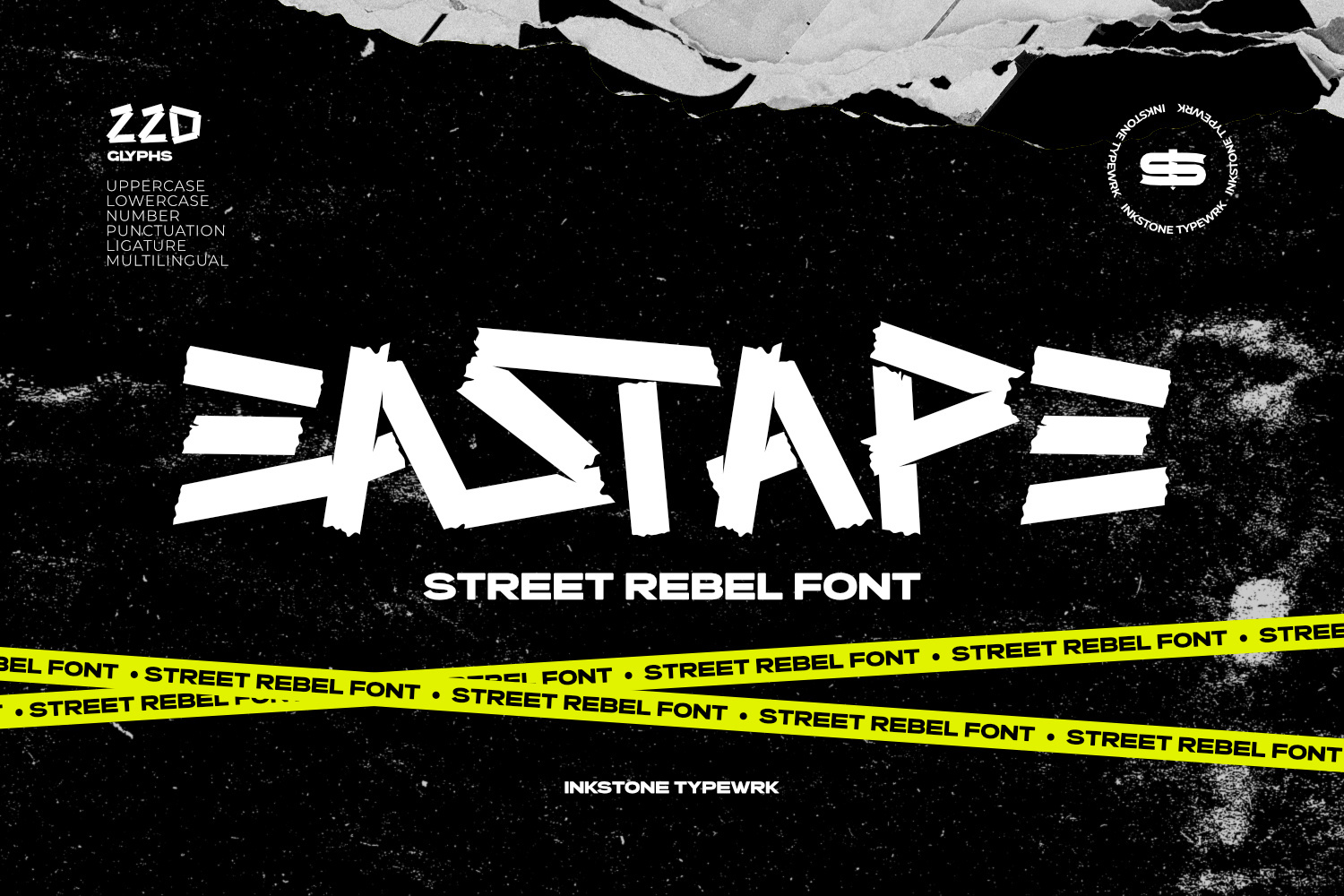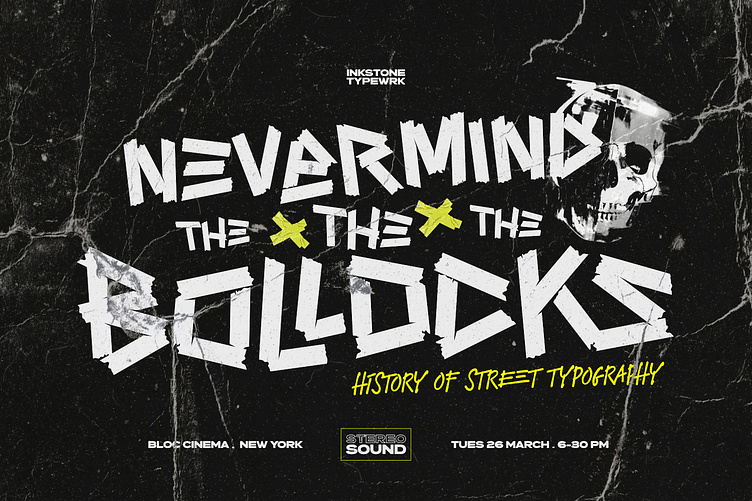
Eastape - Street Rebel Font
Eastape is inspired by tape that’s shaped into letters, often used for protests or vandalism. The font is ultimate for the bold, the rebellious, and the stylish. Packed with energy, it channels the essence of street style and urban culture, capturing the essence of hype and streetwear in every letter. This tape font adds an edgy twist to your designs, making them pop with a sense of revolt and rebellious spirit. Perfect for the youth-driven, street-savvy crowd, Eastape brings a fresh vibe that speaks to the streets, the hustle, and the fight for individuality.